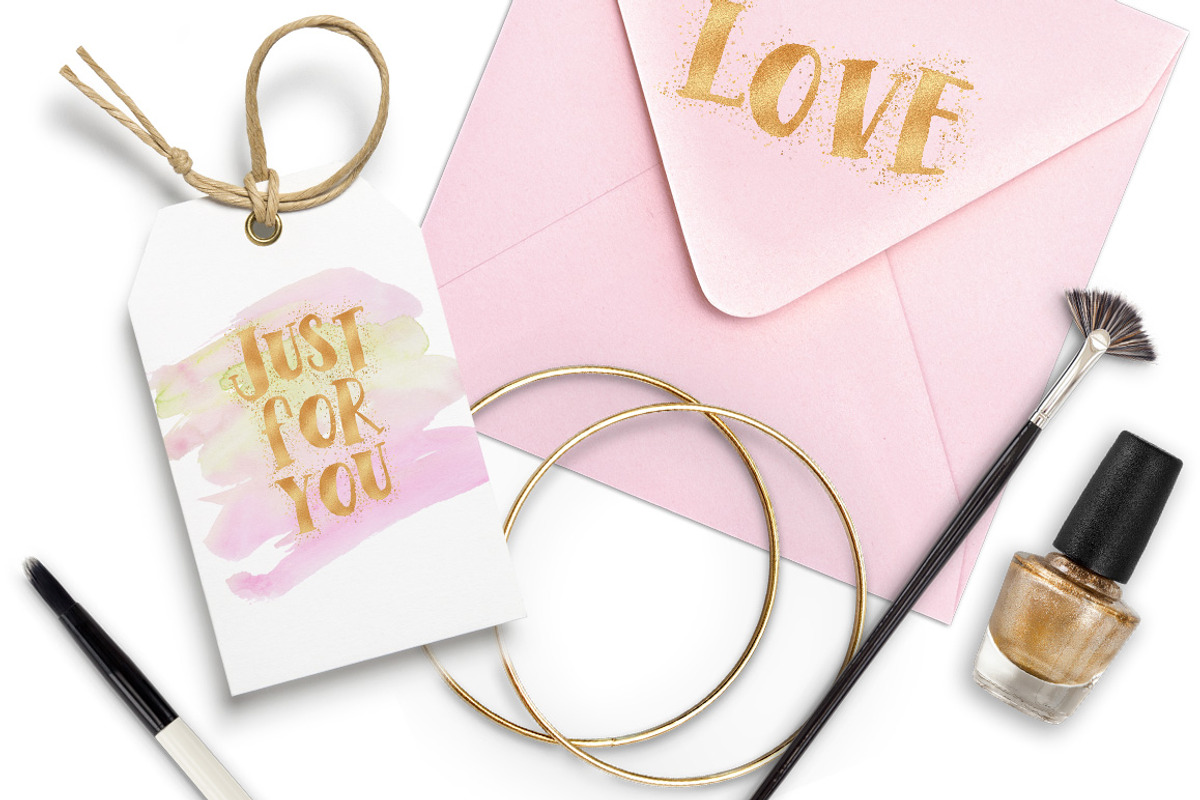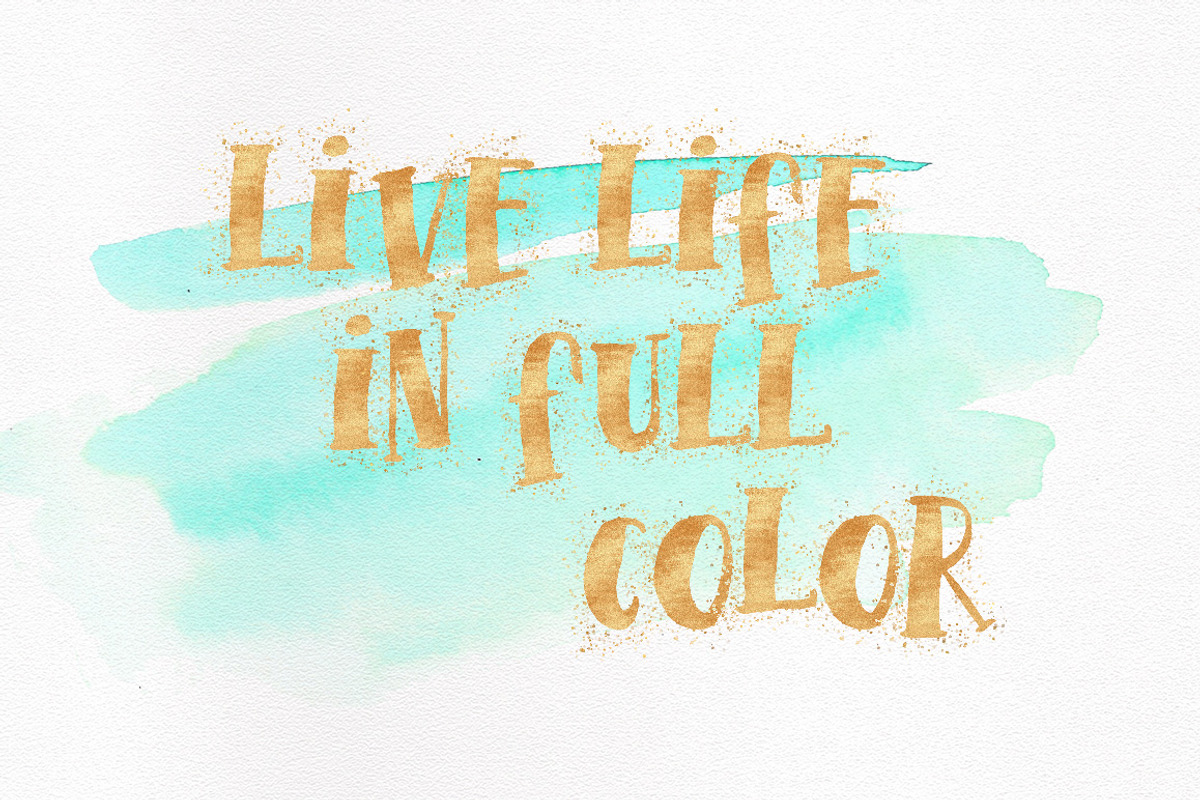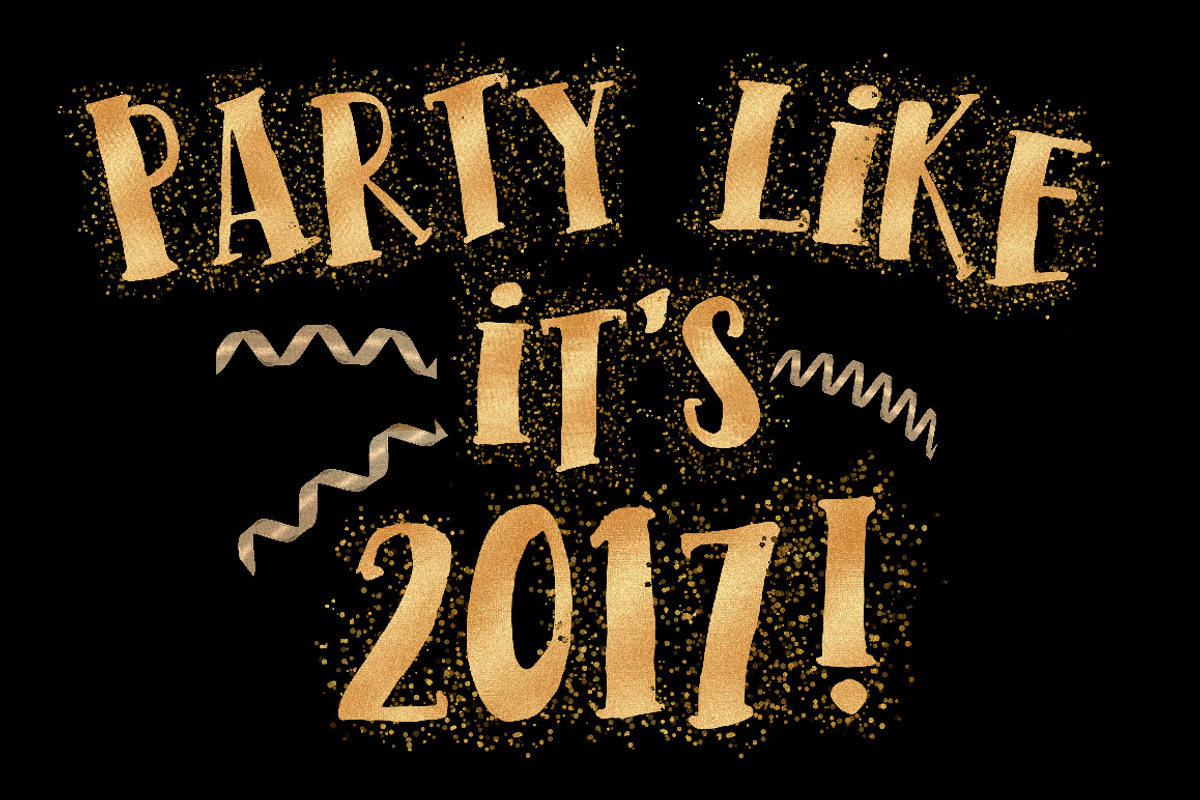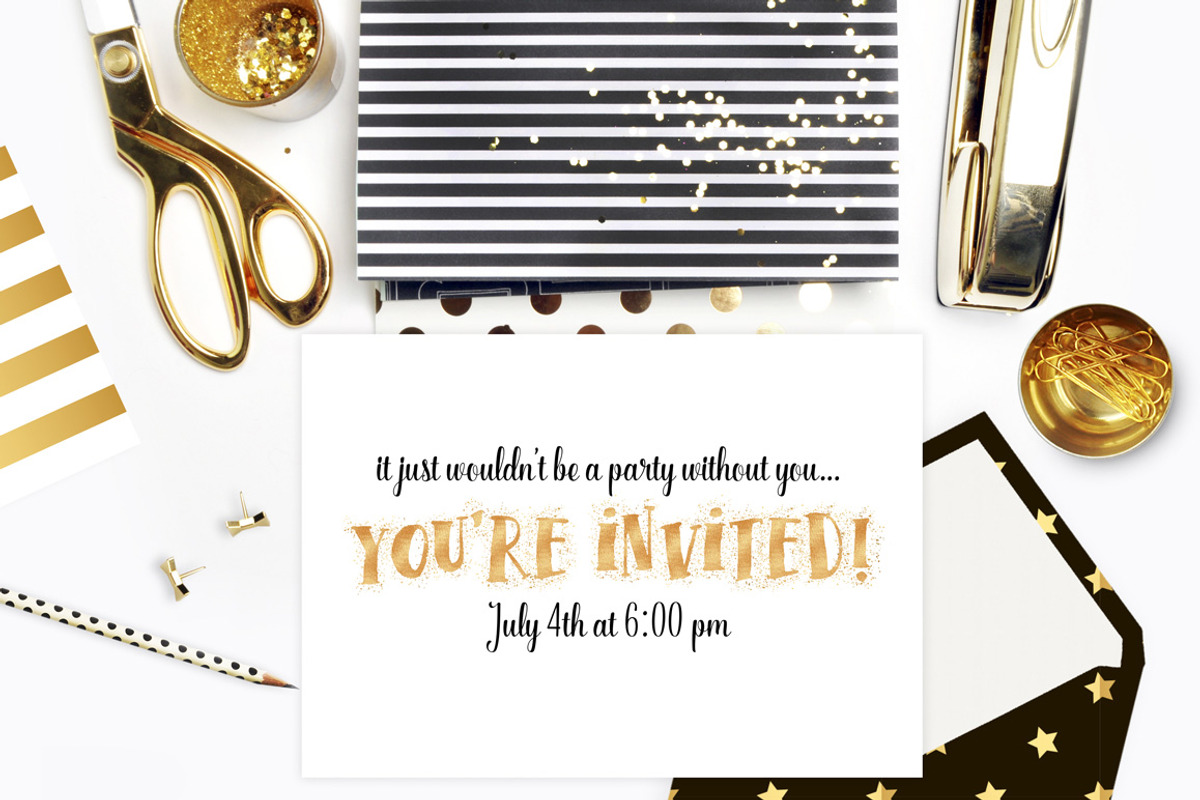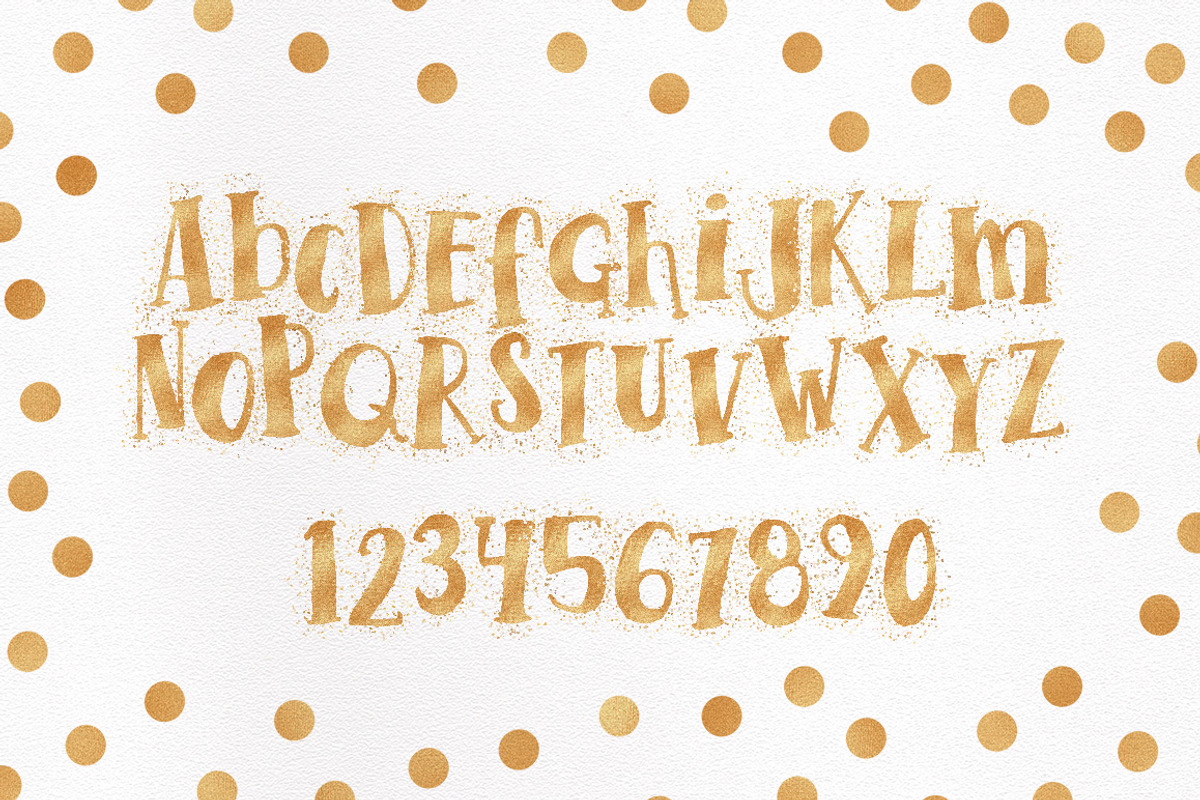
Time To Celebrate Gold Confetti Font
Time To Celebrate Gold Confetti Font by Jodi Van der Kruik is a font selected for branding, posters, packaging, typography.
Why Time To Celebrate Gold Confetti Font is worth a look
Time To Celebrate Gold Confetti Font by Jodi Van der Kruik fits naturally into Branding, posters, packaging, typography.